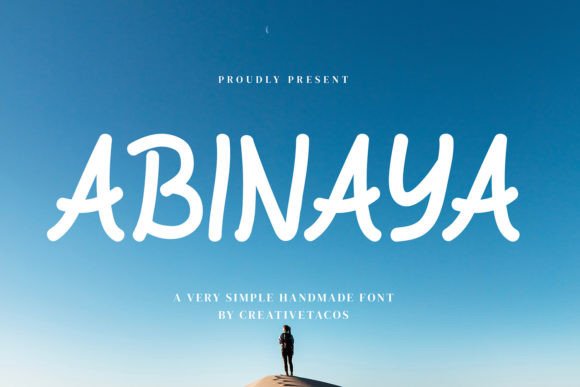
Introduce yourself to Abinaya, a magnificent handwritten script font family designed by the renowned Creative Tacos. This aesthetically pleasing font exudes sweetness, charm, and a touch of playfulness, making it the perfect choice for adding a personal touch to your creative projects.
Step into a world of elegance and creativity with Abinaya, a font that captures the beauty of handwritten artistry. Its carefully crafted characters dance across the page, leaving a trail of sophistication and charm. Whether you're creating wedding invitations, designing logos, or crafting social media graphics, Abinaya will elevate your designs to new heights.
With Abinaya, you'll discover a versatile font that effortlessly adapts to a wide range of design projects. Its graceful curves and sweeping strokes add a touch of whimsy to branding materials, while its readability makes it ideal for extended text. Unleash your creativity and explore endless possibilities with Abinaya.
Abinaya's versatility shines brightest in the realm of wedding designs. Its enchanting characters bring a touch of romance and elegance to wedding invitations, menus, and save-the-date cards. Imagine your guests' delight as they receive these beautifully crafted pieces, feeling the love and care you've poured into every detail.
But Abinaya's allure extends far beyond the world of weddings. Its captivating style adds a touch of uniqueness to logos, branding materials, and social media graphics. Its ability to convey a sense of warmth and authenticity makes it a standout choice for businesses looking to connect with their audience on a deeper level.
Dive into the world of Abinaya and let your creativity flourish. With its effortless charm and versatility, this font will become your go-to choice for adding a touch of magic to your designs. Embrace the beauty of handwritten artistry and watch your projects come to life with Abinaya.